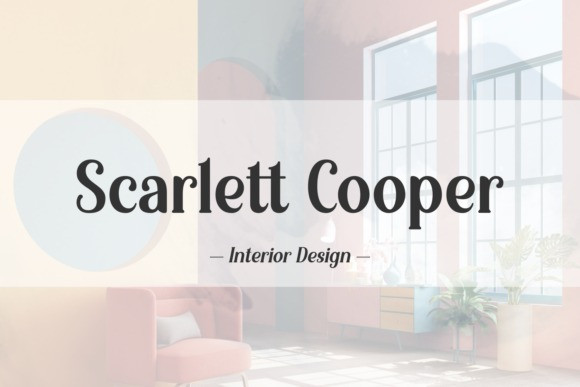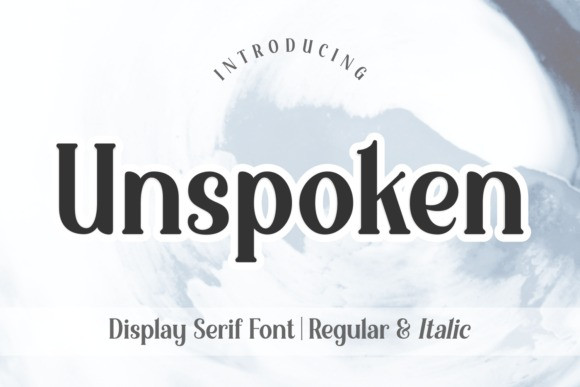
Unspoken Font
Unspoken Font is a modern and casual serif font. It can easily be matched to an incredibly large set of projects, so add it to your creative ideas and notice how it makes them stand out!
Classification: Modern Fonts, Serif Fonts